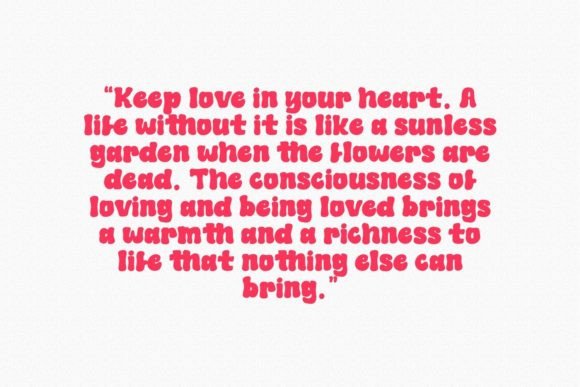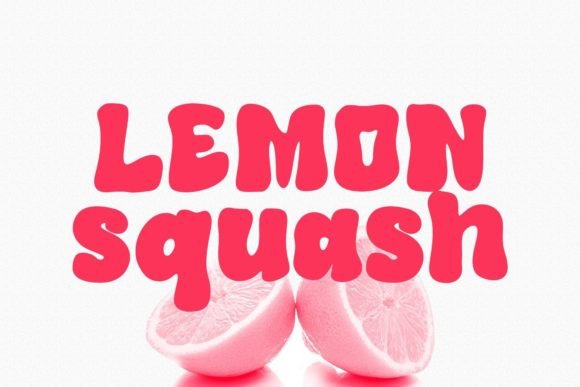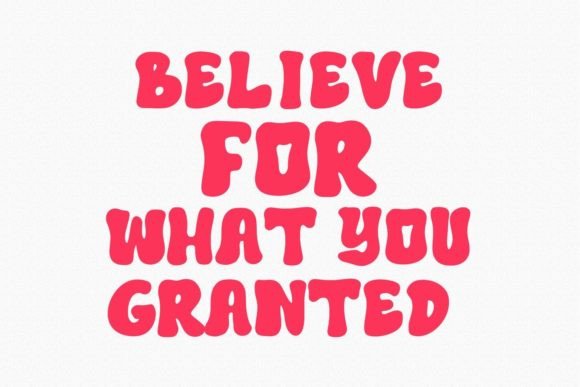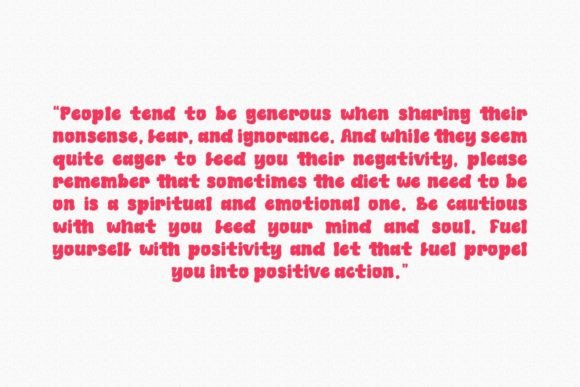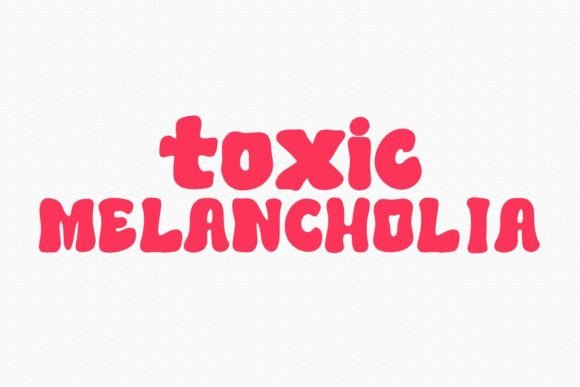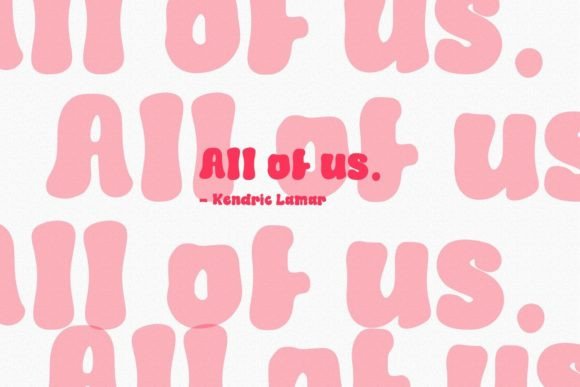
Introduction to Manrose Font
Have you ever found yourself stuck in a creative rut, desperately searching for that one font to bring your project to life? I’m sure we’ve all been there, staring blankly at our screens, wondering how to make our design stand out from the crowd. But then, like a breath of fresh air, you stumble upon a hidden gem – a font that screams ‘groovy’ and ‘playful’, begging to be used.
Meet the Manrose Font, a retro and cool handwritten display font that’s about to become your new best friend. With its transparent background and high-quality design, this font is a valuable resource for any designer looking to add a touch of personality to their creative project. And the best part? It’s available for free download, making it an absolute must-have for anyone looking to elevate their design game.
Key Features of Manrose Font
- High quality, elegant font suitable for various creative projects
- Unique, modern design that can elevate any creative project with its sophisticated look
Honest Review: Manrose Font
As a designer, I’m always on the lookout for high-quality design resources that can elevate my creative projects. The Manrose Font is one such find that I’d like to share with you. This font is perfect for those who need a modern, sleek look for their designs.
- ✨ Elegant and sophisticated design
One thing I appreciate about the Manrose Font is its transparent background, which makes it easy to work with. It’s also incredibly versatile and can be used for a wide range of creative projects, from business cards to posters.
- Limitations:
- ⚠️ Limited character set, may not be suitable for complex typography
- ⚠️ Not as customizable as some other fonts
Overall, I’d give the Manrose Font 4 out of 5 stars. While it’s not perfect, its high quality and free download make it a great resource for designers on a budget. If you’re looking for a sleek and modern font for your next project, I’d definitely recommend checking it out.
The Manrose Font is a high-quality, free download design resource ideal for various creative projects. Its versatility makes it suitable for numerous applications, including digital and print media.
The Manrose Font is commonly used in various design projects, including brochures, flyers, business cards, and presentations. Its transparent background makes it ideal for overlaying on images or using as a background element.
To get the most out of the Manrose Font, use it in conjunction with a high-contrast background to ensure readability. You can also experiment with different font sizes and styles to add visual interest to your project.
Comparison to Manrose Font: Great Vibes Font has a more delicate and refined look compared to Manrose Font, which has a more playful and casual feel.
Yes, the Manrose Font supports transparent backgrounds, making it perfect for designs that require a subtle and elegant look. You can use the font with a transparent background in design software that supports this feature, such as Adobe Illustrator or Photoshop.